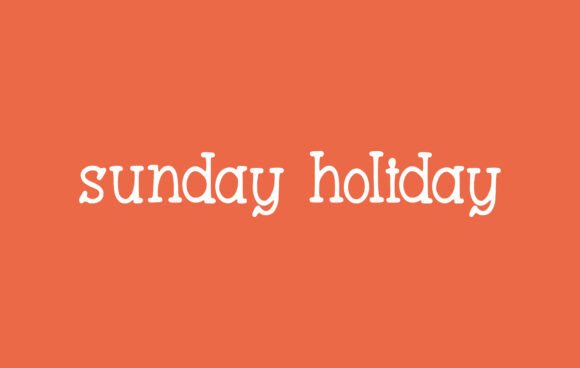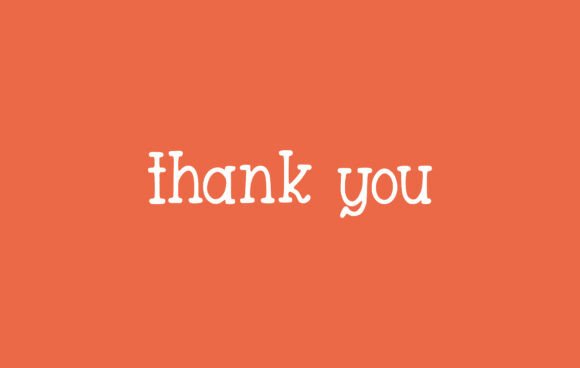
Introduction to Milana Font
Have you ever been working on a creative project, pouring your heart and soul into it, and then suddenly, the perfect font pops up in front of you, elevating the entire design to the next level? That’s exactly what happens when you discover the Milana Font – an authentic handwritten font with a romantic touch that will make your designs truly unforgettable.
As a designer, you know the importance of having the right tools to bring your ideas to life. That’s where Milana Font comes in – a high-quality design resource that’s perfect for adding a personal touch to your creative projects. With its legible and elegant style, this font is ideal for magazine headlines, social media, branding, wedding invitations, and more. And the best part? It’s available for free download, making it an accessible and valuable addition to any design arsenal.
Key Features of Milana Font
- Unique, hand-drawn style with a transparent background, perfect for adding a personal touch to designs.
- Comes in 6 different font styles, including bold and italic options, to cater to various design needs.
- Perfect for use in graphic design, digital art, and other creative projects where a unique, high-quality font is required.
Honest Review: Milana Font
I recently had the opportunity to work with the Milana Font, and I must say it’s a fantastic design resource. As a designer, I’m always on the lookout for high-quality fonts that can elevate my creative projects. Milana Font delivers on this front, offering a sophisticated and elegant aesthetic that’s perfect for a variety of applications.
What works well with Milana Font is its versatility. It’s available for free download, making it an excellent choice for designers on a budget or for personal projects. The font also features a transparent background, allowing for seamless integration with other design elements.
The Milana Font family includes multiple styles, each with its own unique characteristics. This variety makes it easy to find the perfect fit for your project.
What I Like:
- ✨ Multiple styles to choose from
What I Don’t Like:
Overall, I’m impressed with the Milana Font. It’s a great addition to any designer’s toolkit, offering a unique and stylish aesthetic that’s perfect for a variety of applications. With its high-quality design and free download availability, it’s definitely worth checking out.
Tips for Getting the Most Out of Milana Font
Experiment with different font sizes and styles to find the perfect balance for your project. Use the transparent background feature to add depth and interest to your designs. Combine the Milana Font with other design elements to create a cohesive and engaging visual identity.
The Milana Font is perfect for a wide range of creative projects, including graphic design, digital art, and typography-based art. Its high-quality design and transparent background feature make it an excellent choice for presentations, documents, and social media graphics.